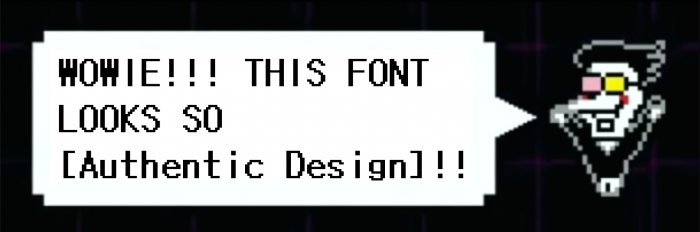
• Previously known as "Greater Determinaion Speech Bubble".
[2025.04.04] Added missing Greek characters.
[2022.09.03] Added Extended Latin A character set.
[2022.08.31] Added more commonly used Greek characters.
[2022.05.17] Added Cyrllic character set.
[2022.05.16] Added More Latin and Greek character sets.
The main font for enemy dialogue used in Undertale and Deltarune, created by Toby Fox.
The font looks similar to "DotumChe" at 10pt. The only difference is the character spacing. "DotumChe" has a spacing of two pixels, while there is only one pixel spacing in-game.